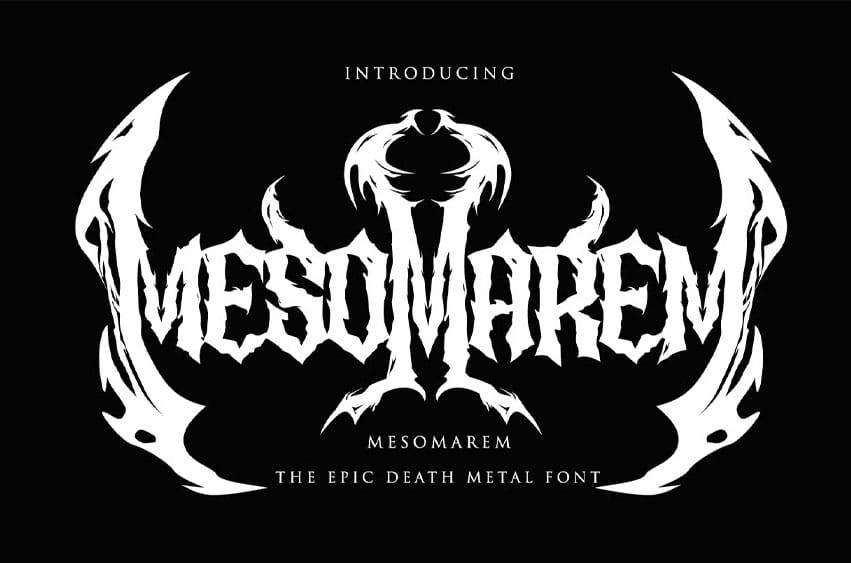
MesoMareM Font is a fierce and aggressive display font inspired by the raw aesthetics of extreme metal culture. Designed with sharp, organic strokes and chaotic symmetry, this typeface captures the essence of death metal logos while remaining surprisingly versatile for modern design needs. Its bold presence makes it perfect for projects that demand intensity, darkness, and a rebellious edge.
Crafted for designers who want to push boundaries, MesoMareM comes with a rich set of alternate characters that allow you to create unique, custom logotypes effortlessly—just like iconic underground band logos.
- Full uppercase character set with highly stylized letterforms
- Multiple alternate glyphs for creative variations
- OpenType features (Stylistic Alternates & Glyphs access)
- Unique symmetrical and ornamental letter shapes
- High-impact display style for large typography
- Create authentic metal-style logos without drawing from scratch
- Stand out instantly with a bold, eye-catching aesthetic
- Flexible customization using alternates to craft unique lettering
- Save time on complex logo design with ready-made decorative forms
- Perfect for branding in music, gaming and dark-themed visuals
- Enhance visual identity with a distinctive and memorable typeface
Perfect For : Album covers, band logos, merchandise, posters, gaming titles, horror designs, branding, and any project that needs a dark, aggressive visual impact.